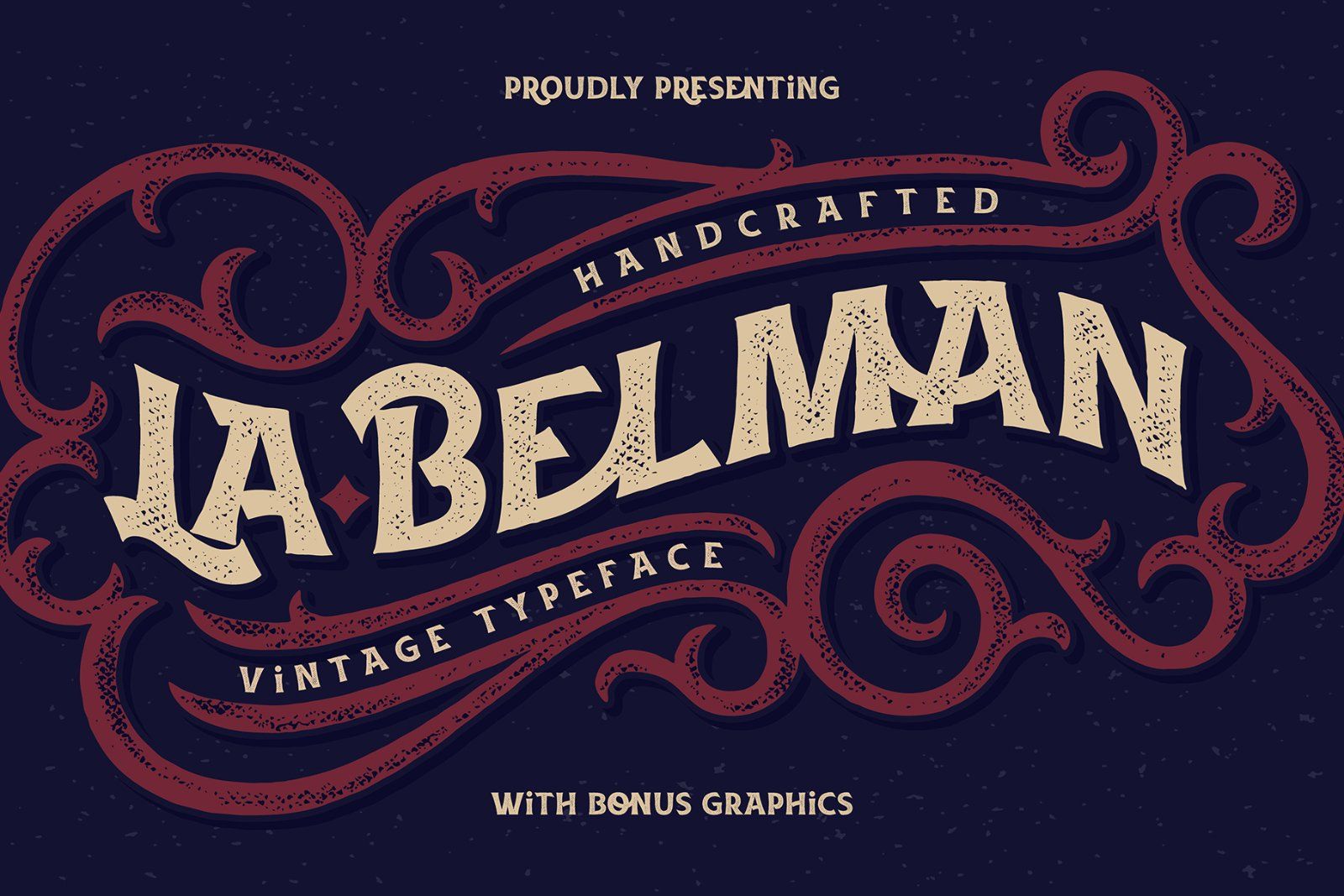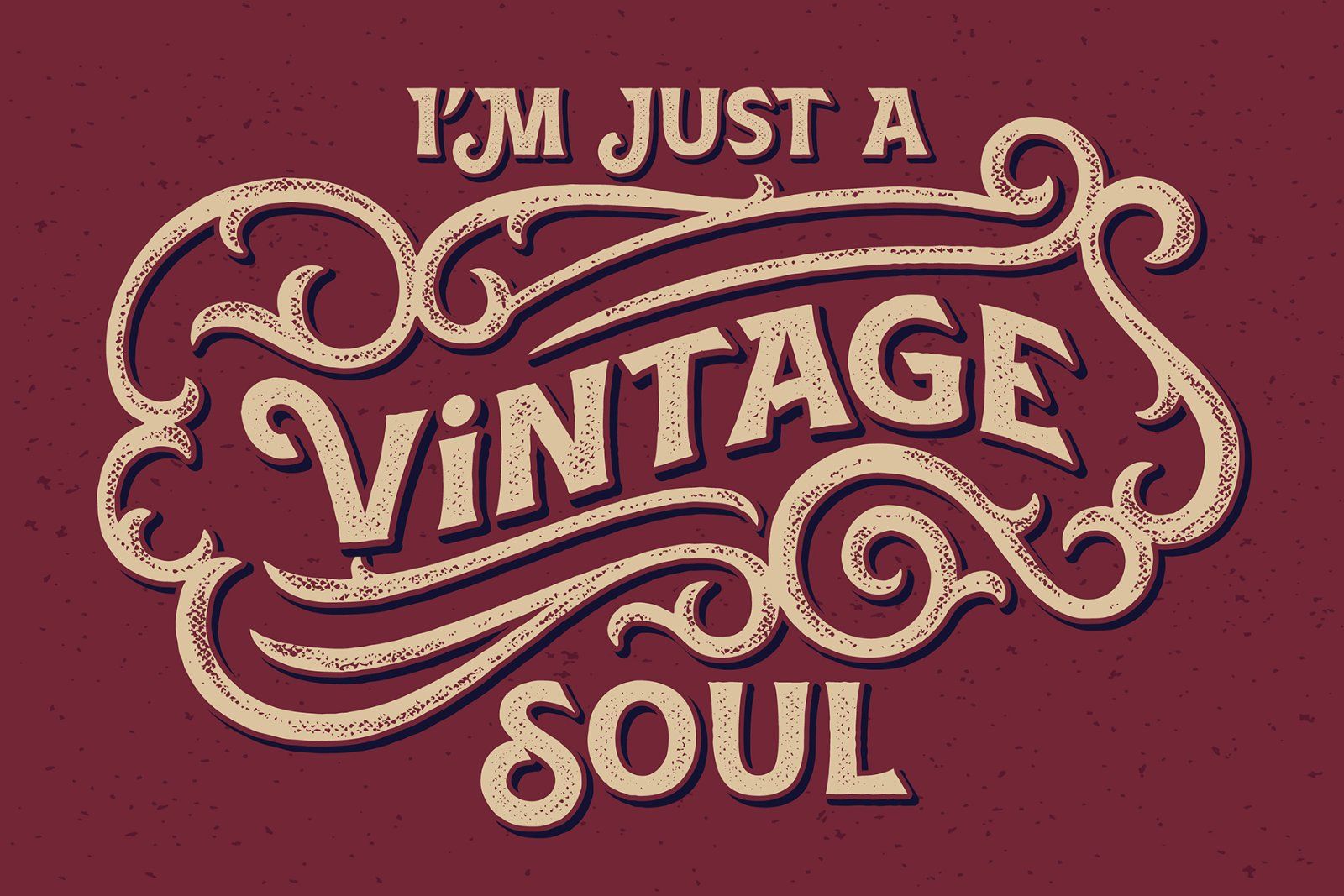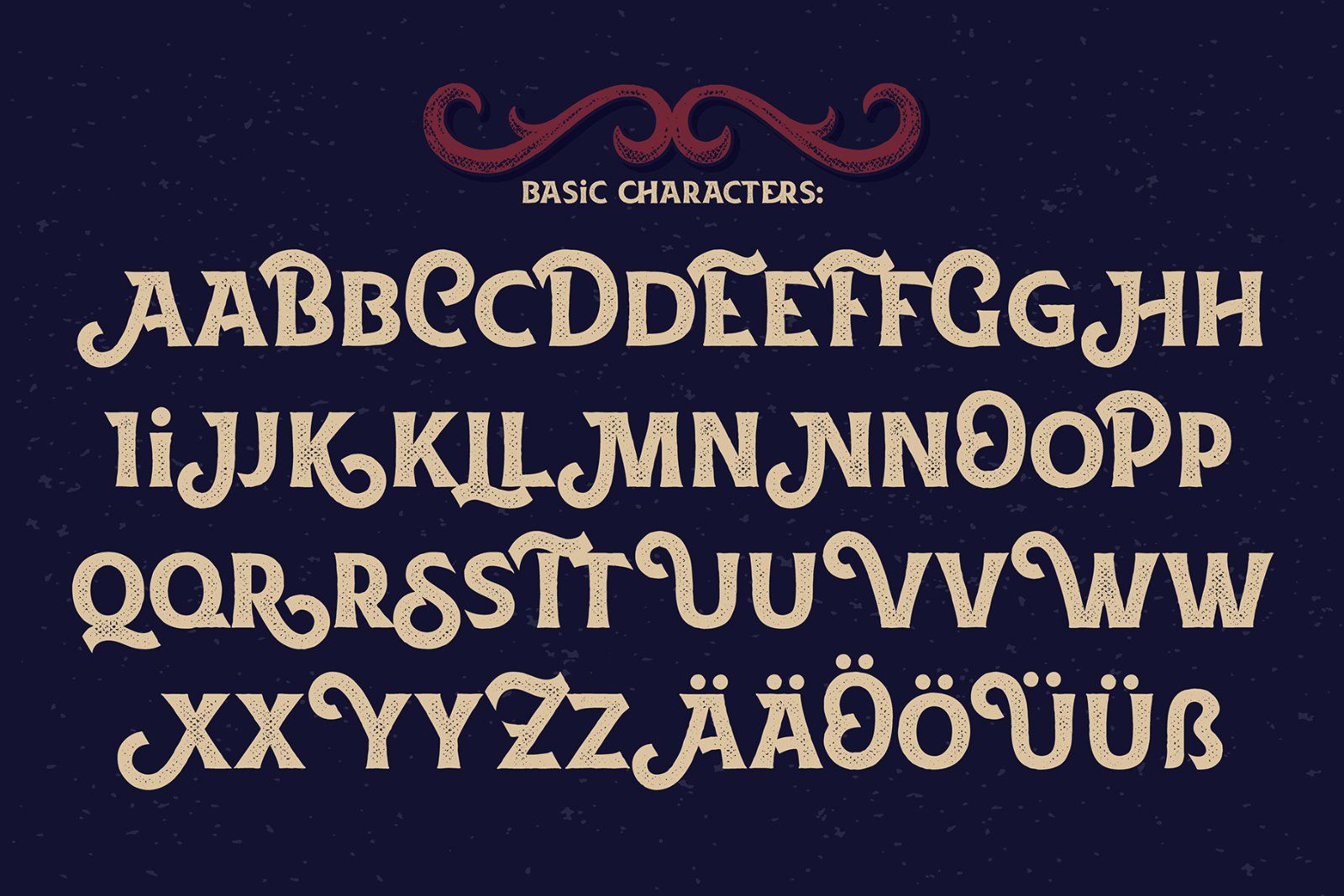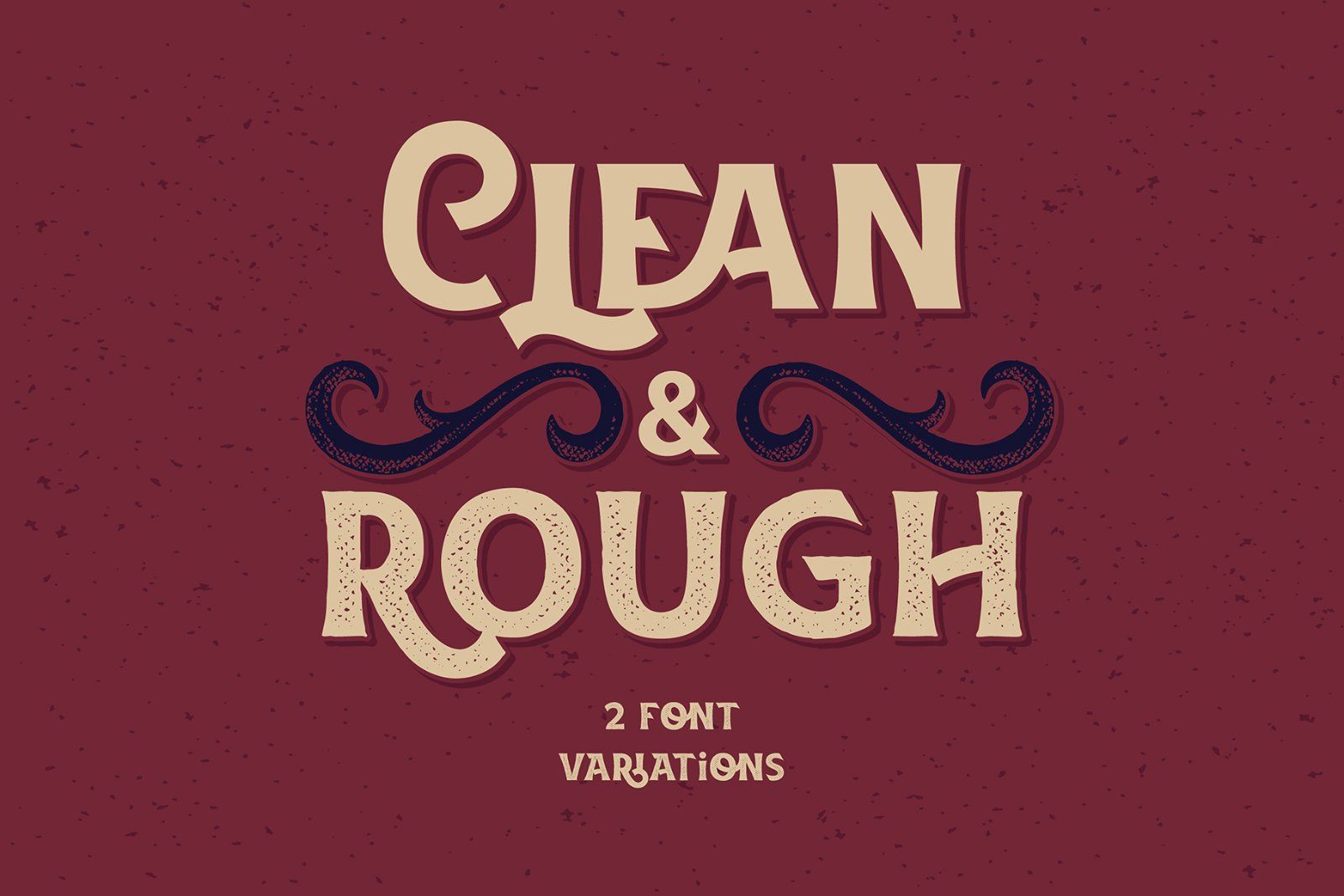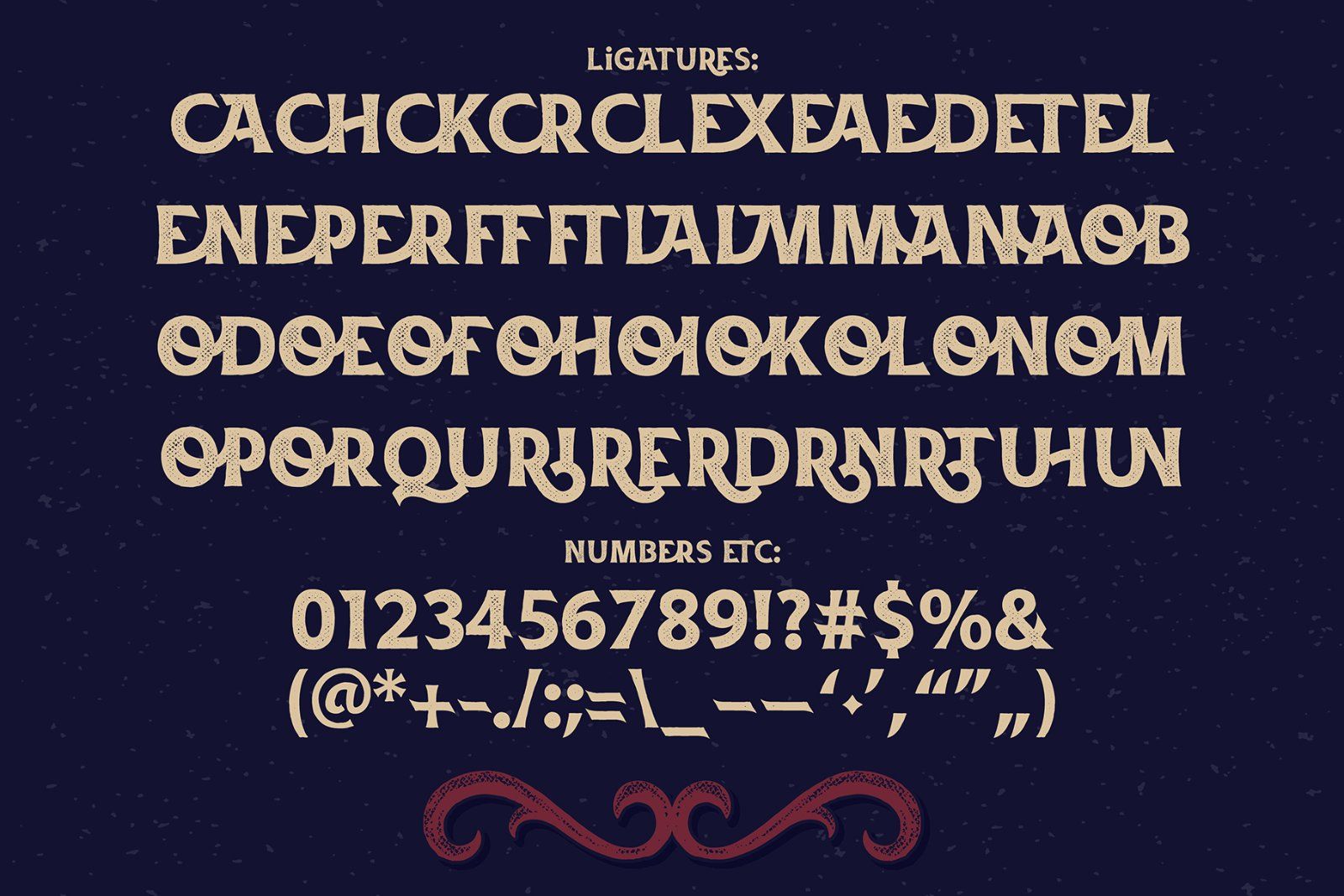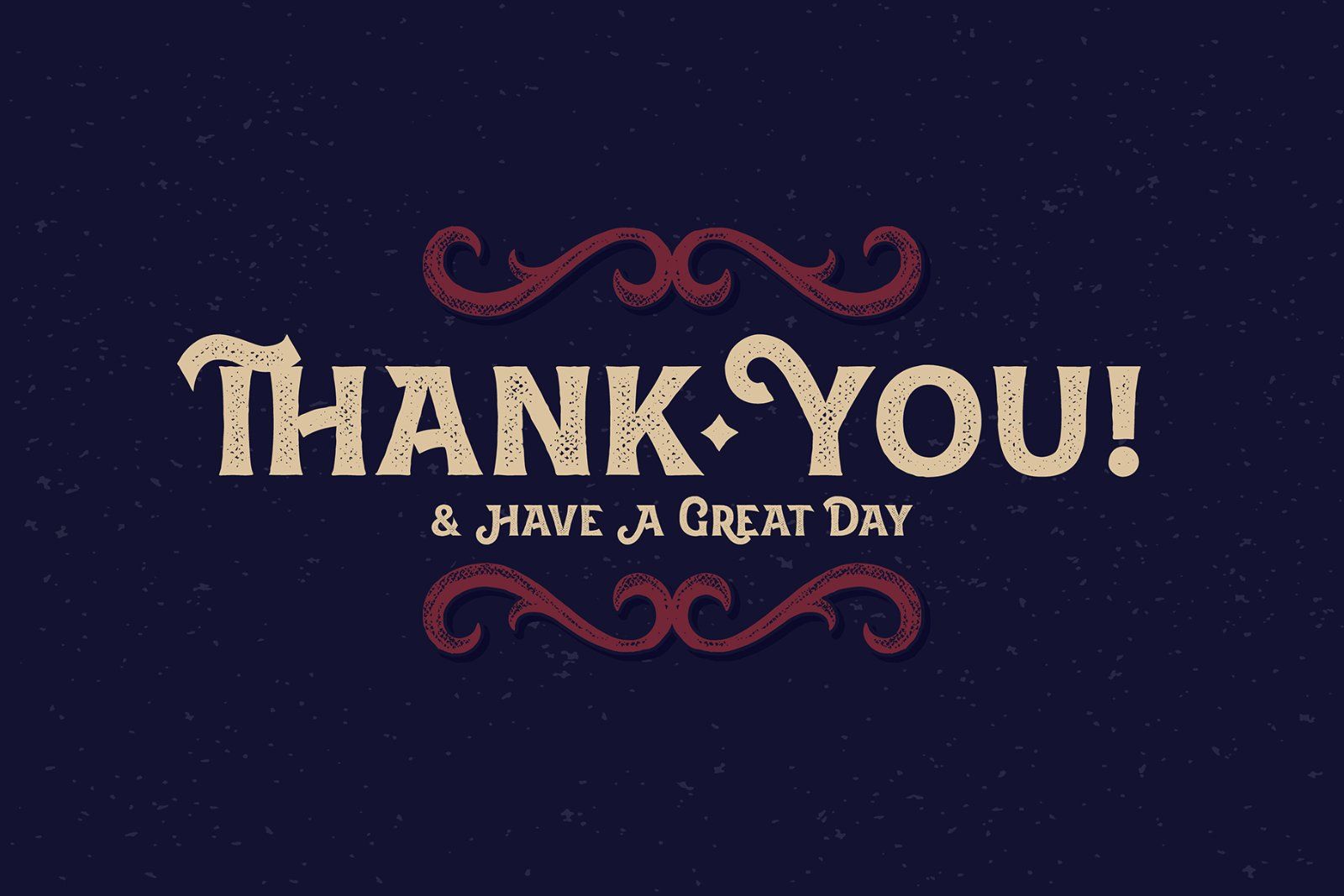
Hi! Presenting a vintage font set named La Belman. It's a vintage typeface with rough textured effect. It also includes a clean version of this font. Lots of ligatures will help you to make your lettering more unique (all characters you can see on the 3rd screenshot). As a bonus you will get a vector template with ornate from title screenshot.